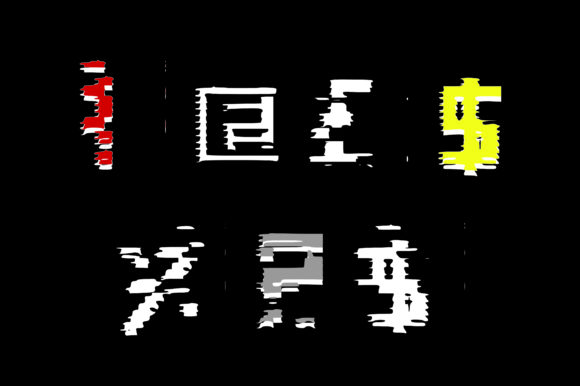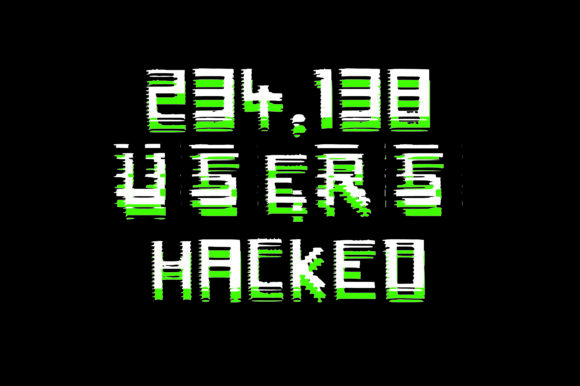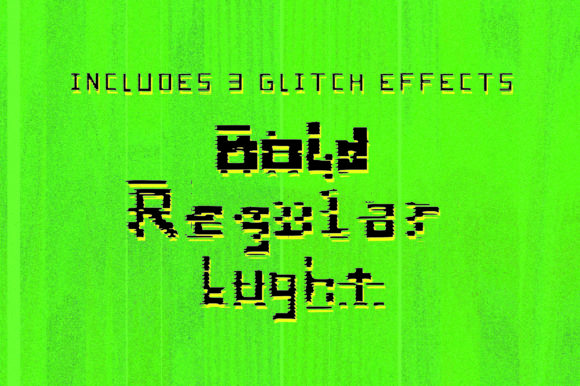
Introduction to Glitch Simple Font
Inspired by computer errors, Glitch Simple is a retro-futuristic font with a distinct digital touch.
Get inspired by its vintage, yet digital aesthetic and use it for any design project that needs a bold update .